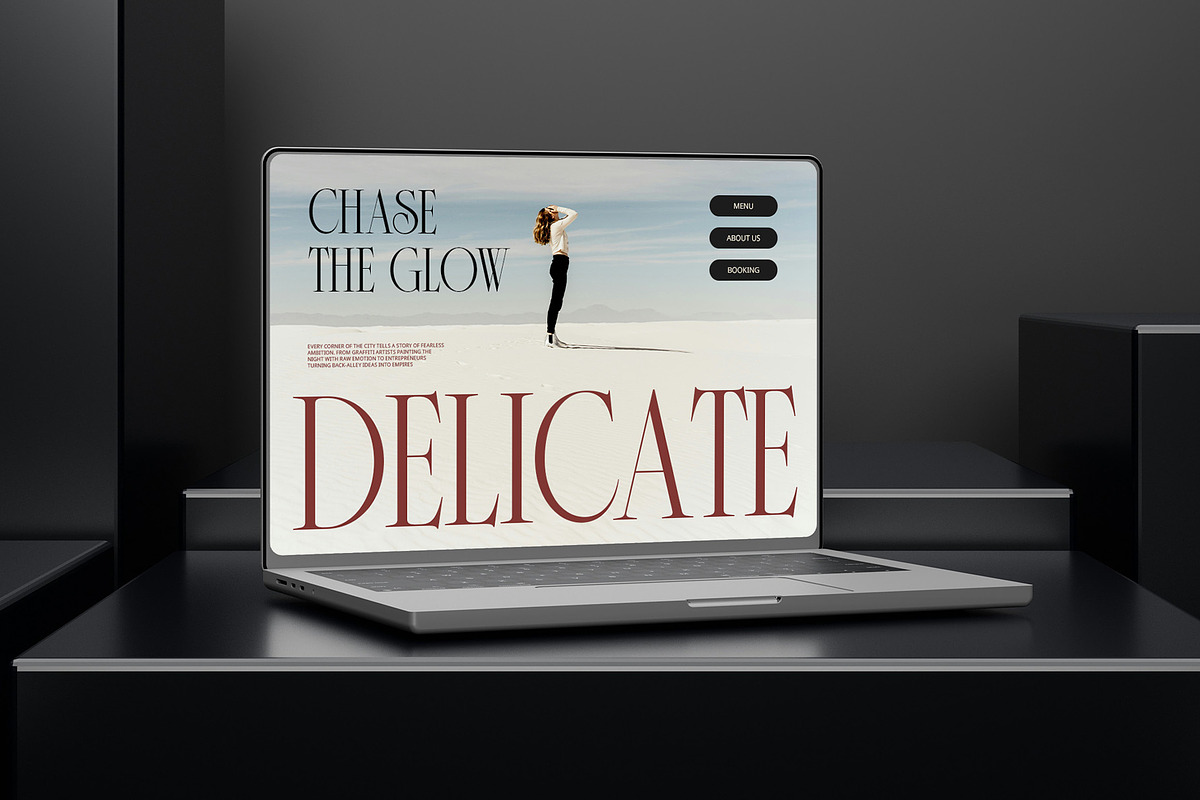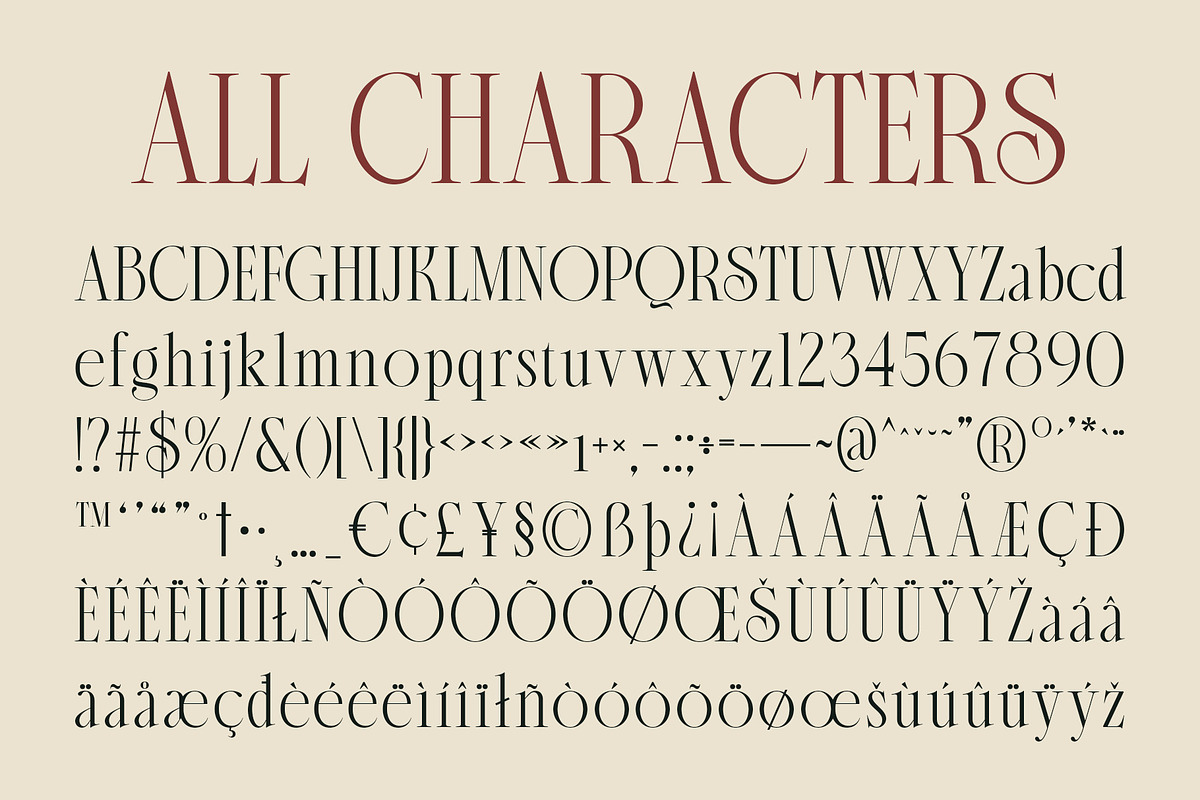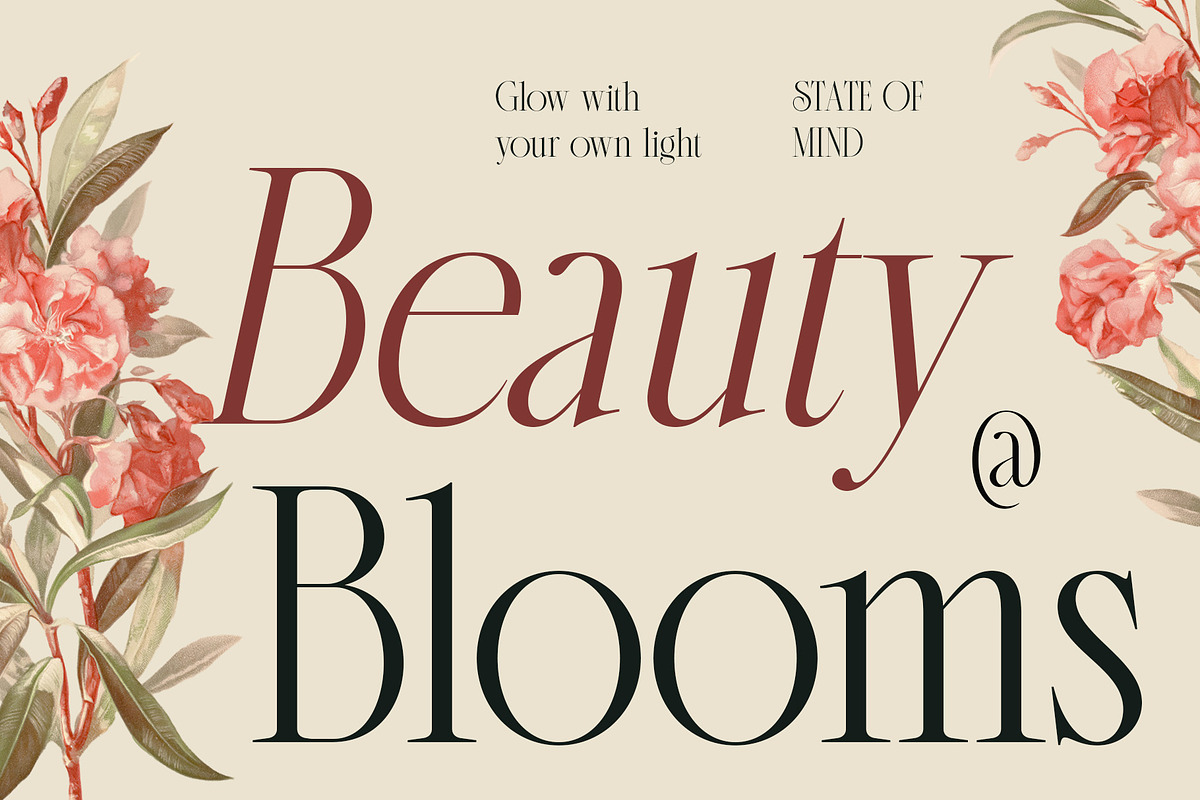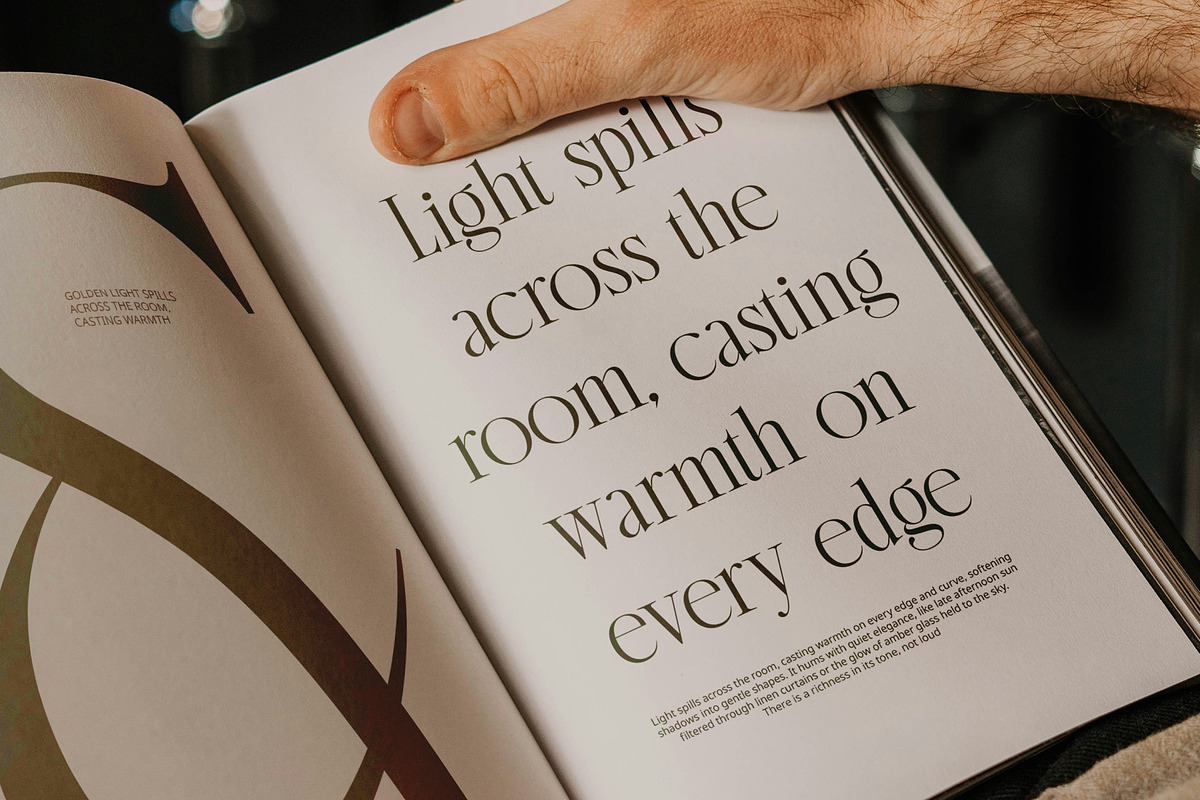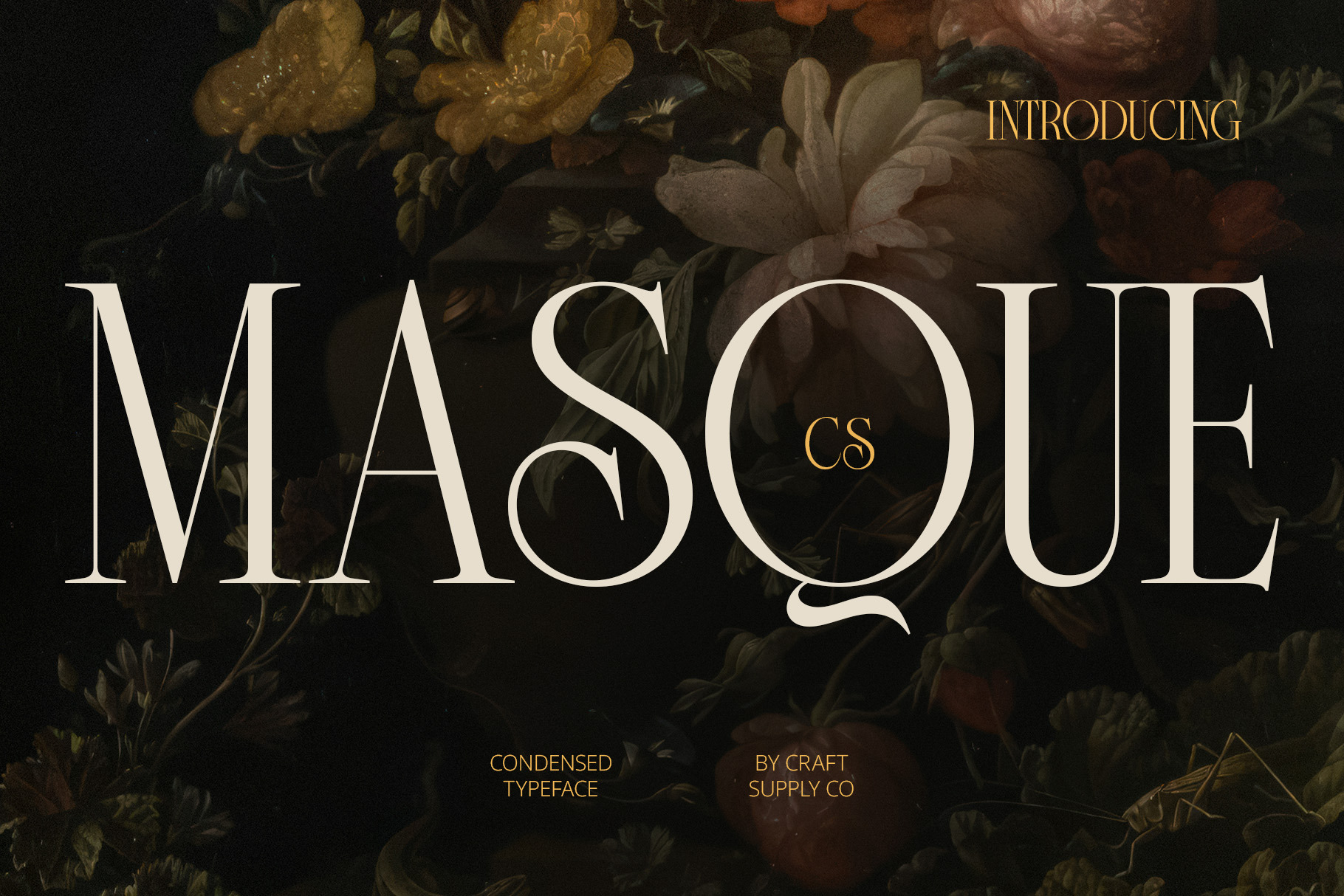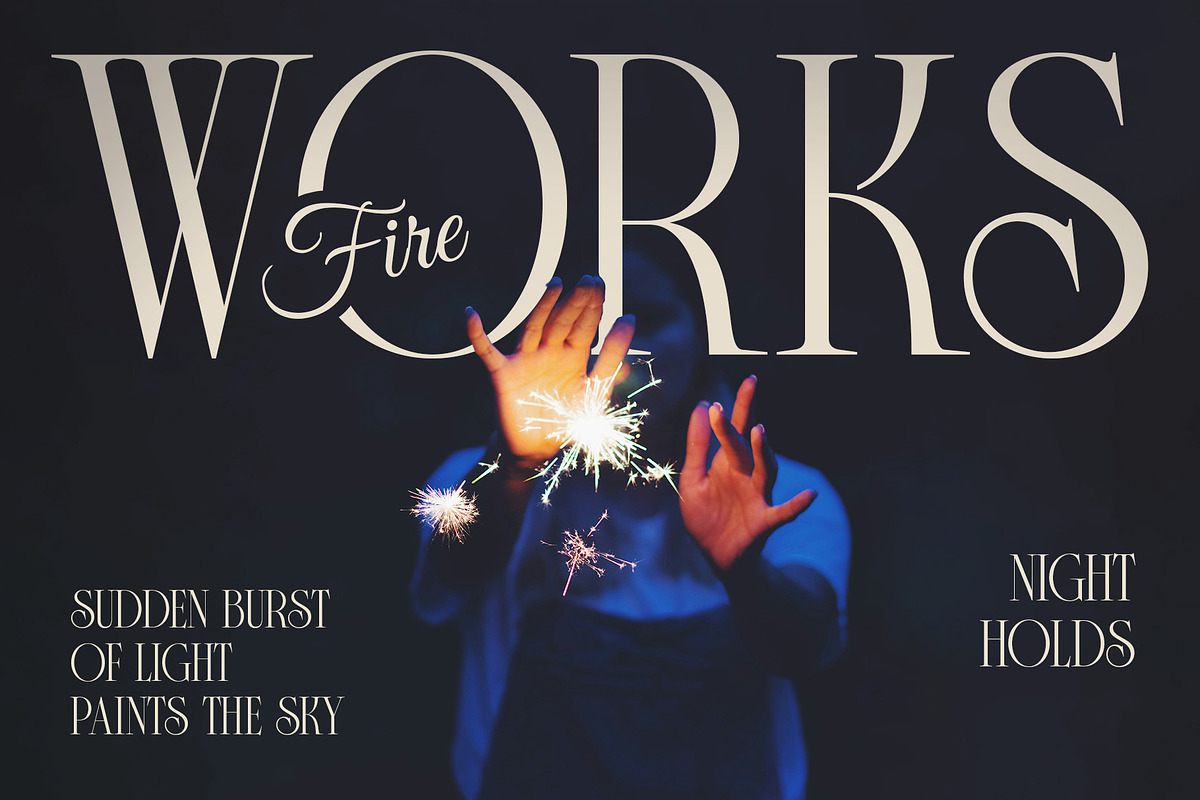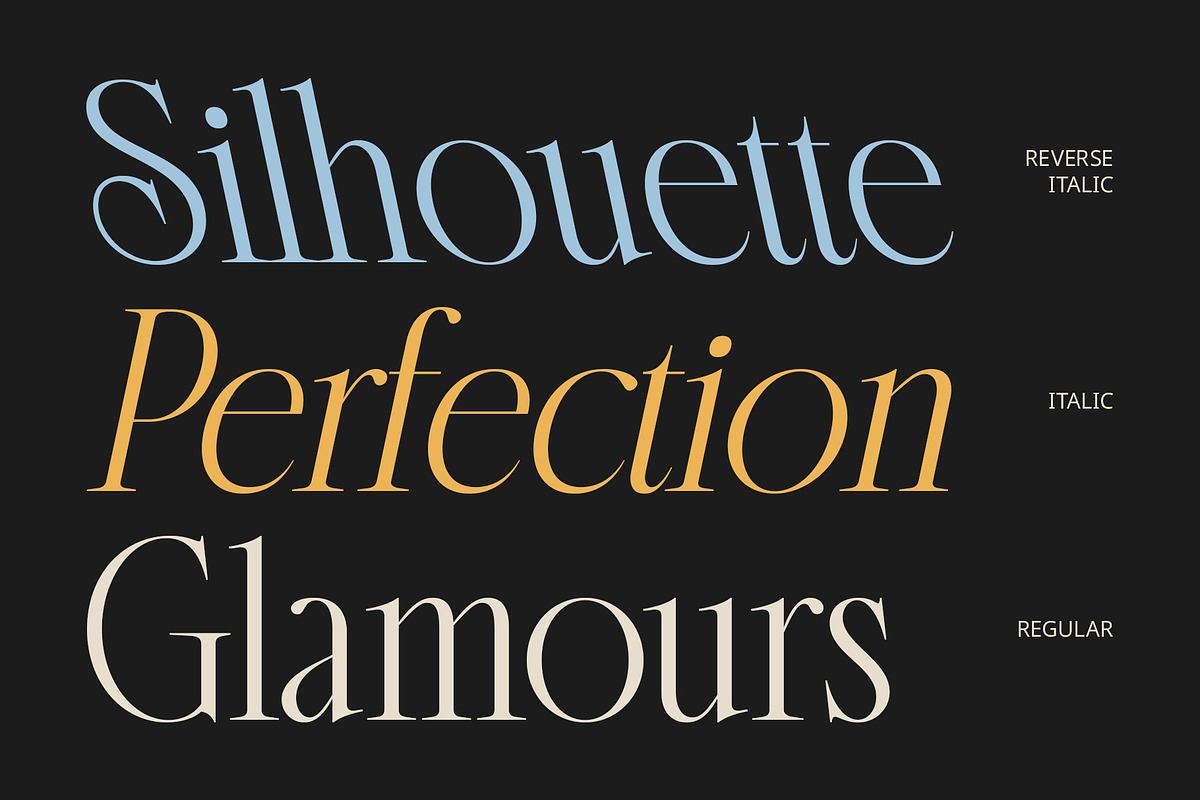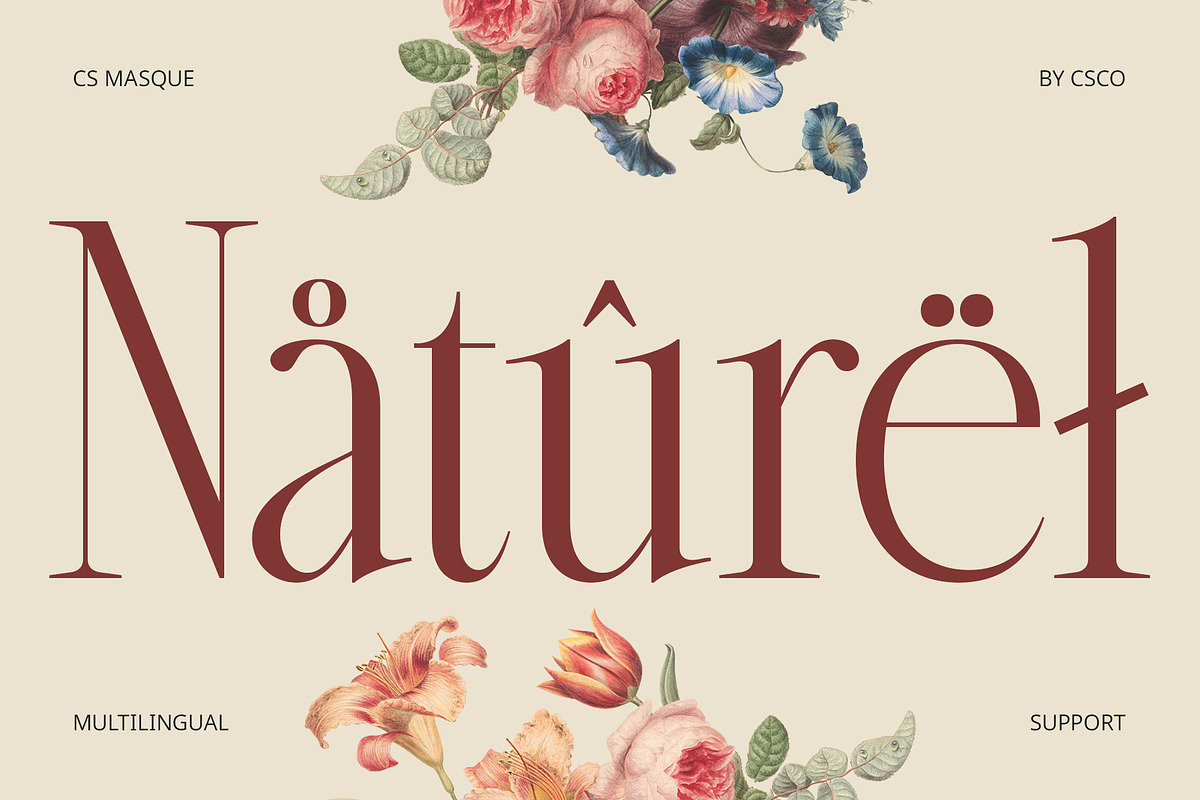
CS Masque – Condensed Font
CS Masque Font – Condensed Serif with Elegant Precision
Refined Minimalism Meets Classic Charm CS Masque is a modern serif font that brings together the timeless beauty of classic serif design and the clean sophistication of contemporary minimalism. With its condensed structure and slender forms, it creates a graceful and elevated visual language perfect for upscale design needs.
Tall, Narrow Forms for a Sleek Look Designed with elegance in mind, CS Masque features tall, narrow letterforms that give layouts a vertical sophistication and refined presence. The condensed width allows for more text in tighter spaces, making it ideal for magazine spreads, luxury labels, and stylish branding projects.
Perfect for Editorial and Luxury Branding From fashion editorials and modern headlines to high-end packaging and identity systems, CS Masque delivers a poised and professional appearance. Its modern serif construction evokes trust, class, and a polished visual tone—ideal for projects that demand both substance and style.
A Contemporary Serif with Lasting Appeal Built to bridge traditional form with modern taste, CS Masque stands out for its ability to adapt across different styles and mediums. Its timeless charm and sleek appearance make it versatile for both print and digital platforms—offering a distinctive voice that elevates your project with grace and clarity.
- CS Masque Regular
- CS Masque Italic
- CS Masque Reverse Italic